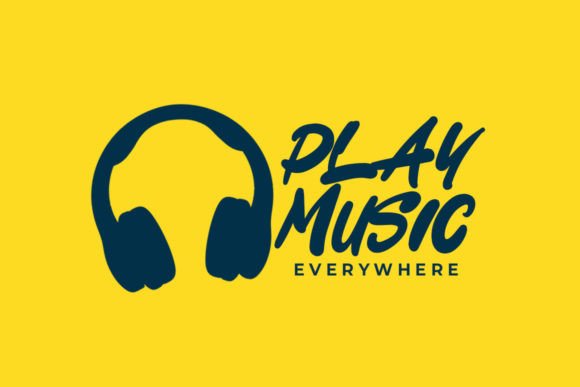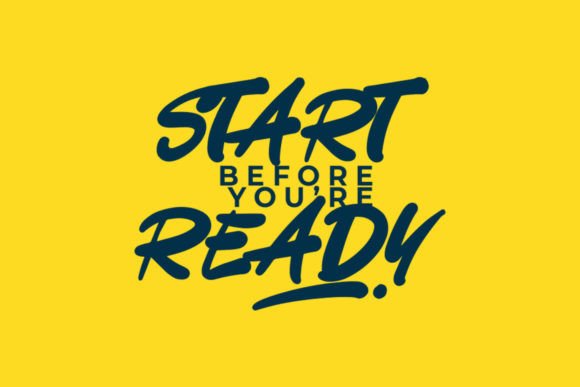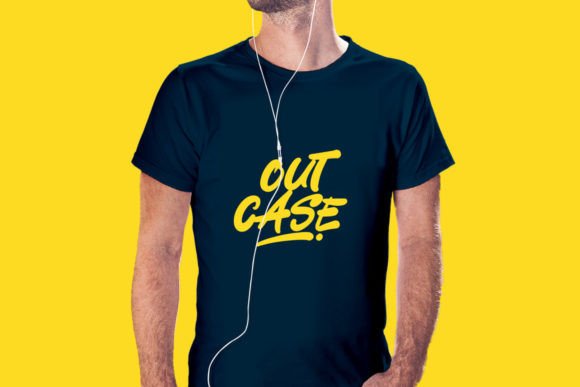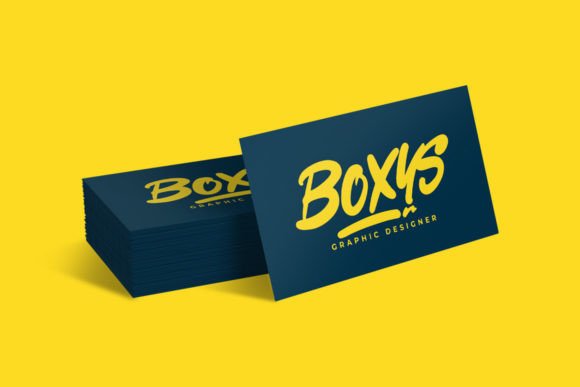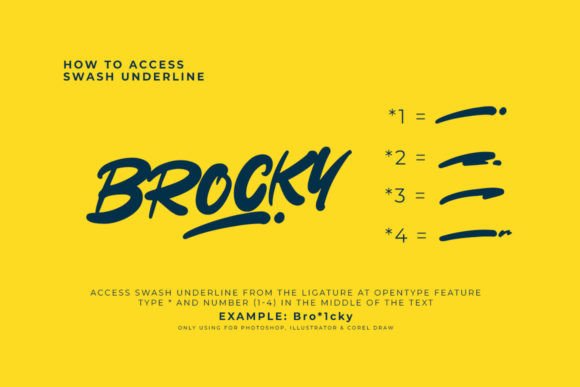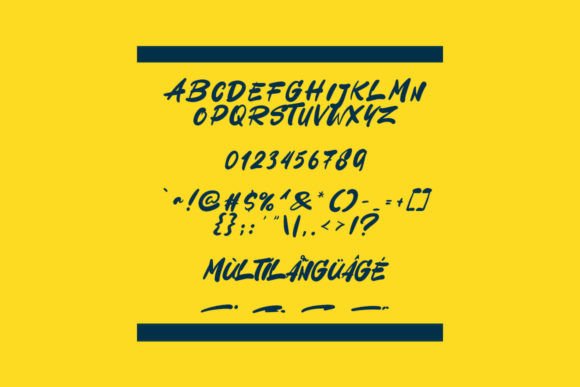
Introducing Autodex Font: The Modern Bold Brush Font for Creative Designs
Are you a designer or crafter looking for a unique and quirky font to elevate your creative projects? Look no further than Autodex Font! This modern bold brush font is perfect for a wide range of applications, from posters and logos to magazines, book covers, banners, and more. In this article, we’ll dive into the features and benefits of Autodex Font, and explore how you can use it to create stunning designs.
What is Autodex Font?
Autodex Font is a modern bold brush font that boasts a unique and quirky personality. Its bold and expressive strokes make it perfect for designs that require a statement piece. The font’s brush-like texture gives it a hand-crafted feel, adding a touch of warmth and character to any design. Whether you’re creating a poster, logo, or book cover, Autodex Font is sure to turn heads.
Key Features of Autodex Font
- Modern Bold Design: Autodex Font features a modern bold design that’s perfect for making a statement.
- Brush-Like Texture: The font’s brush-like texture gives it a hand-crafted feel, adding a touch of warmth and character to any design.
- Quirky Personality: Autodex Font has a quirky personality that’s sure to add a touch of whimsy to your designs.
- Highly Versatile: The font is highly versatile and can be used for a wide range of applications, from posters and logos to magazines, book covers, and more.
Uses for Autodex Font
Autodex Font is perfect for a wide range of creative projects, including:
- Posters: Create eye-catching posters that grab attention with Autodex Font.
- Logos: Use Autodex Font to create unique and memorable logos that stand out from the crowd.
- Magazines: Add a touch of personality to your magazine designs with Autodex Font.
- Book Covers: Create stunning book covers that capture the essence of your story with Autodex Font.
- Banners: Use Autodex Font to create eye-catching banners that grab attention.
Benefits of Using Autodex Font
So why choose Autodex Font for your creative projects? Here are just a few benefits of using this amazing font:
- Unique and Quirky: Autodex Font is a unique and quirky font that’s sure to add a touch of personality to your designs.
- Easily Readable: Despite its bold and expressive strokes, Autodex Font is easily readable, making it perfect for body text and headlines.
- Highly Versatile: Autodex Font can be used for a wide range of applications, from posters and logos to magazines, book covers, and more.
- Time-Saving: With Autodex Font, you can create stunning designs in no time, saving you time and effort.
Tips for Using Autodex Font
Here are a few tips for getting the most out of Autodex Font:
- Experiment with Colors: Autodex Font looks great in a variety of colors, so don’t be afraid to experiment and find the perfect hue for your design.
- Play with Sizes: Autodex Font can be used at a variety of sizes, from small and subtle to large and bold.
- Mix and Match: Try mixing and matching Autodex Font with other fonts to create a unique and eye-catching design.
Autodex Font is a modern bold brush font that’s perfect for creative designers and crafters. With its unique and quirky personality, highly versatile design, and easily readable strokes, Autodex Font is sure to elevate your designs to the next level. Whether you’re creating posters, logos, magazines, book covers, or banners, Autodex Font is the perfect choice. So why wait? Get Autodex Font today and start creating stunning designs that turn heads!